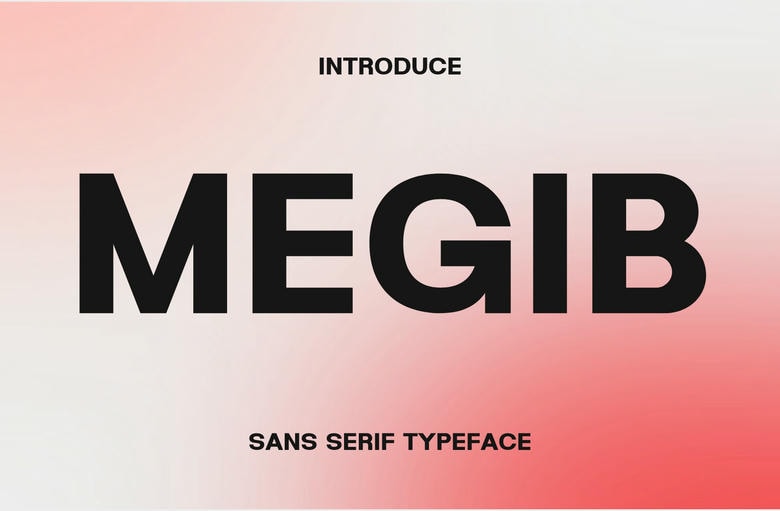
Command the room with Megib, a powerful and heavy duty sans serif typeface capable of maximum impact. This typeface has ultra bold weights and tight apertures that create a “wall of text” appearance that’s ideal for modern branding and high visibility advertising. The Megib font is the embodiment of strength and clarity and will provide a good foundation for any design that needs to feel indestructible and contemporary.
Despite its tremendous weight, the Megib typeface has a clean and professional silhouette that works across digital and print mediums. It is the ideal choice for tech startups, fitness brands and urban streetwear labels that want to project a sense of power and innovation. The Megib font is for hero banners, bold logo marks and impactful environmental graphics.
It pairs beautifully along with vibrant gradients or stark black and white layouts to make the most of its geometric precision. When you need a Megib typeface to do the heavy lifting in your design hierarchy, its uncompromising bold nature is sure to ensure that your message is seen and remembered. It’s a modern work horse to the bold designer.
This typeface is good in branding, logos, headlines, posters, social media materials and packaging. The structure is bold, which produces the feeling of confidence and comprehension and is appropriate in corporate identities as well as startups and contemporary creative work. The simplicity of the style applied by Megib makes it flexible without being too weak. This font is readable, professional, and attractive whether it is displayed in the large screen or a small layout.